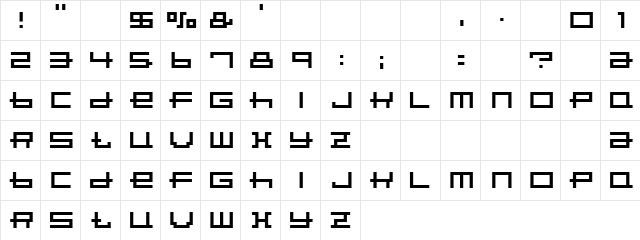
Porpoise Regular
Design Context for Porpoise Typeface
Porpoise is a composed and adaptable typeface that performs quietly and consistently across a wide range of design contexts.